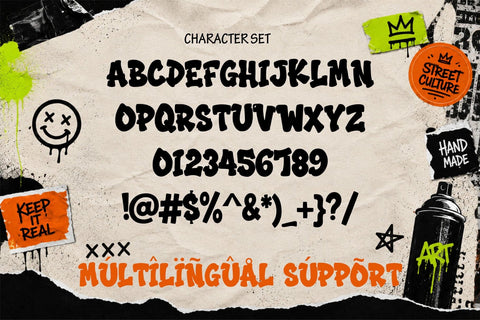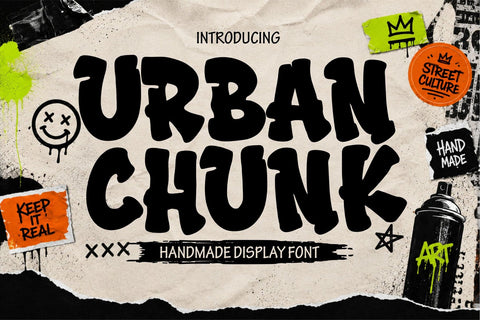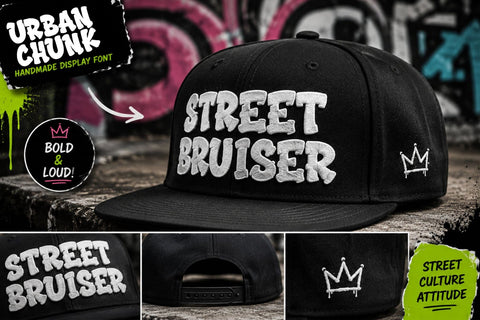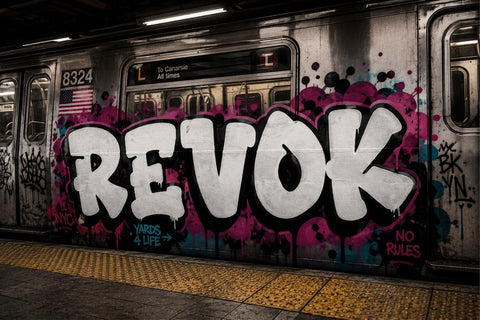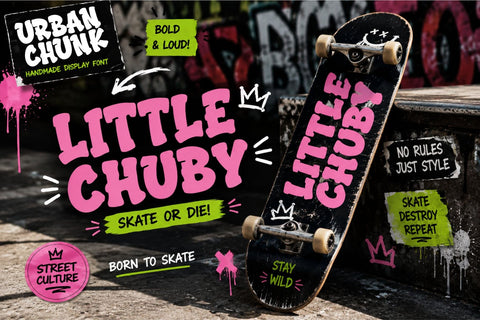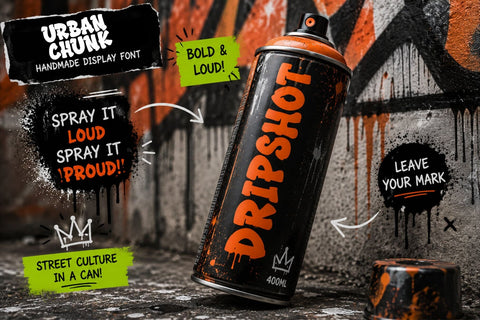
Urban Chunk – Cute Bold Street Style Graffiti Font
Urban Chunk is a playful cute bold street-style graffiti font inspired by colorful urban murals, hip hop culture, skateboarding, comic illustrations, and modern street typography. Combining thick rounded letterforms with expressive graffiti influences, Urban Chunk creates typography that feels energetic, approachable, and instantly memorable.
Designed for designers seeking bold yet friendly display typography, Urban Chunk balances urban personality with exceptional readability. Unlike traditional graffiti fonts that emphasize aggressive forms, Urban Chunk introduces softer curves and chunky proportions, making it suitable for a wider range of commercial and creative applications.
The font includes uppercase letters, lowercase letters, numbers, punctuation, and multilingual support, giving designers a complete toolkit for building logos, branding systems, promotional graphics, apparel, packaging, and digital content.
Urban Chunk shines across numerous creative fields including streetwear branding, gaming graphics, children's products, YouTube thumbnails, social media campaigns, posters, fast food branding, candy packaging, toy branding, merchandise, stickers, skate culture, music promotion, esports, comic-inspired artwork, and colorful editorial layouts.
Its rounded shapes make every word feel playful while maintaining the confident presence expected from graffiti-inspired typography. The bold construction performs exceptionally well in logos, oversized headlines, apparel graphics, and promotional campaigns where typography becomes the focal point.
Urban Chunk pairs beautifully with vibrant color palettes, spray paint textures, cartoon illustrations, stickers, doodles, comic layouts, and energetic graphic compositions. Designers can also combine outlines, shadows, gradients, and layered effects to create endless visual variations.
Whether creating a new streetwear identity, launching a gaming campaign, designing colorful packaging, or building engaging digital content, Urban Chunk provides a fun and authentic street-inspired aesthetic that immediately captures attention.
With its combination of readability, bold structure, and playful graffiti influence, Urban Chunk is an ideal display typeface for modern brands seeking fresh urban energy and youthful visual appeal.